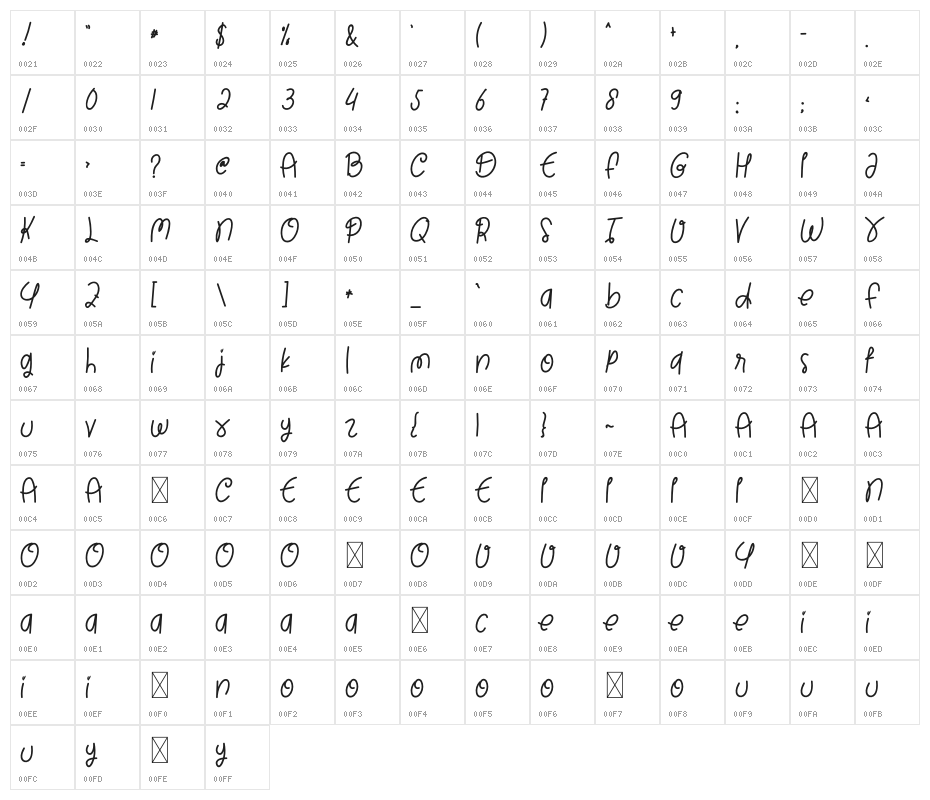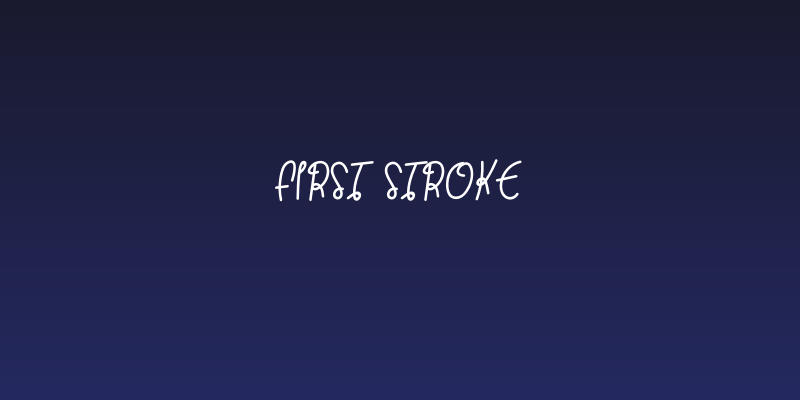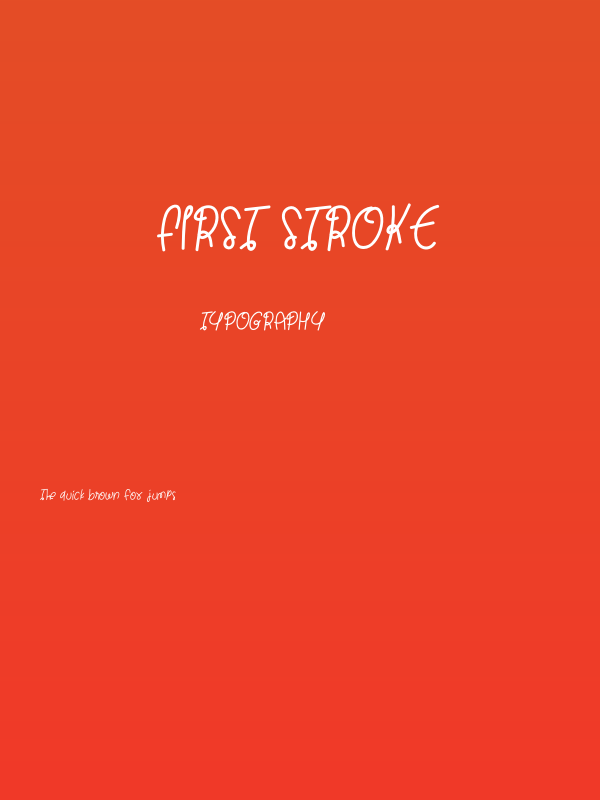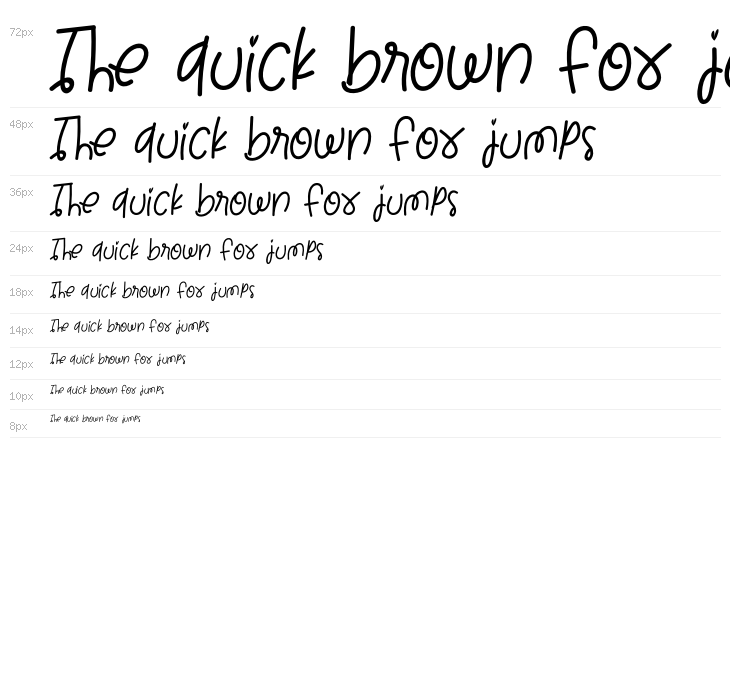
First Stroke Font
First Stroke Description
This font features a playful and casual handwritten style, characterized by its smooth, flowing curves and slightly irregular letterforms. The strokes are consistent in width, giving it a uniform appearance, while the rounded edges add a friendly and approachable feel. The uppercase and lowercase letters maintain a cohesive look, with a slight slant that enhances its informal nature. The numerals and special characters are designed to match the overall aesthetic, ensuring versatility across different uses. This font is ideal for projects that require a personal touch, such as invitations, greeting cards, or branding for creative businesses.
| Proposed Projects | Ideal for invitations, greeting cards, personal branding, and creative projects. |